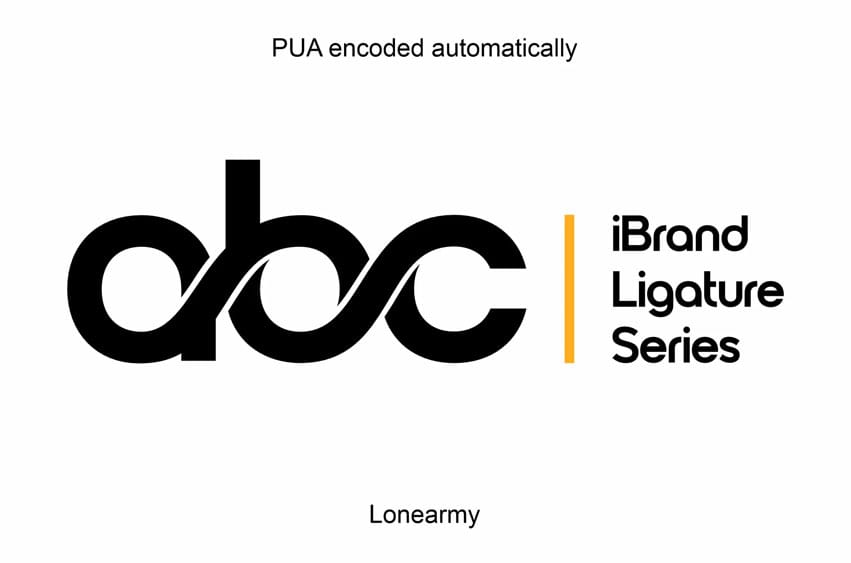
iBrand Ligature Font is a meticulously crafted typeface, purpose-built for logos, branding, headers, and titles. Now enhanced with sleek two-letter and three-letter ligatures, it’s the perfect choice for creating unique and memorable icon logos. With precise kerning and spacing optimized for impactful branding, iBrand Font ensures your designs leave a lasting impression.
Please note: iBrand Font is not intended for body text, but it excels in visual applications where every detail counts.